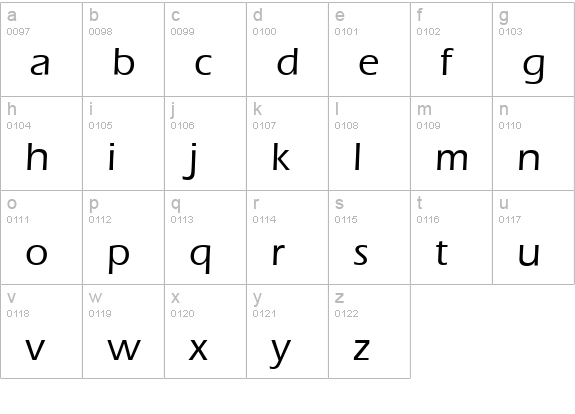
Ennis-Medium-Regular is a balanced, medium-weight variant in the Ennis typeface family \xE2\x80\x94 well suited to sub-headlines, navigation, and balanced editorial work.
Ennis-Medium-Regular is a versatile and classic font that exudes elegance and sophistication. With its clean lines and balanced proportions, this font is perfect for a wide range of design projects, from branding and advertising to editorial and web design. What sets Ennis-Medium-Regular apart is not just its timeless design, but also the fact that it is available for free. That's right - you can download this stunning font for no cost at FontsMarket.com. Whether you're a seasoned designer looking to add a new font to your collection or a beginner in need of a quality typeface, Ennis-Medium-Regular is a fantastic choice that won't break the bank. With its readability and versatility, Ennis-Medium-Regular is sure to become a go-to font for all your design needs. Download it for free today and elevate your projects with this stylish and sophisticated typeface.